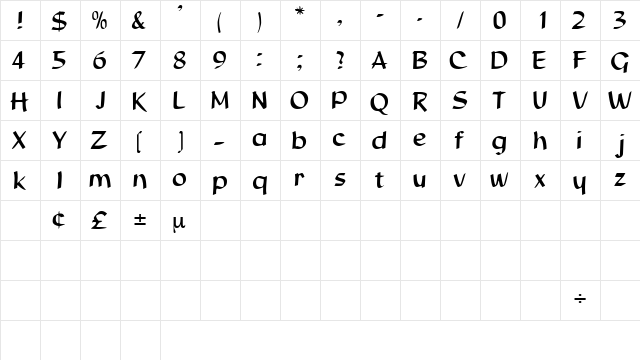
BeauregardDisplaySSK Regular Font Preview
BeauregardDisplaySSK Regular
Design Context for BeauregardDisplaySSK Typeface
BeauregardDisplaySSK is built around its visual character rather than neutral utility — its distinctive forms are designed to make an impression at display sizes.